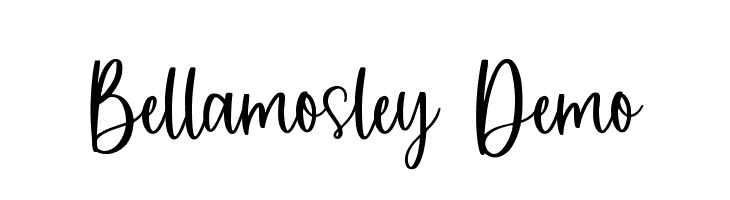
A whimsical, elegant cursive font with a hand-drawn appearance.
A bold, playful script font with smooth, flowing curves.
A bold, cursive font with fluid, connected characters and smooth curves.
A bold, cursive script font with a dynamic and flowing style.
A sophisticated script font with flowing, connected strokes and elegant flourishes.
A lively, expressive handwritten font with fluid, dynamic strokes.
An elegant, flowing script font with bold, cursive strokes.
An elegant, flowing script font with interconnected, cursive letterforms.
A graceful, cursive script font with elegant, flowing strokes.
An elegant script font with flowing, cursive style and delicate swirls.